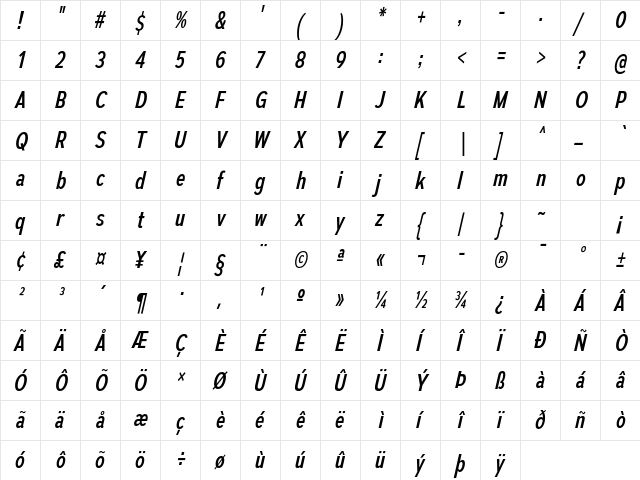
Autoradiographic Italic
Design Context for Autoradiographic Typeface
Autoradiographic offers clean, dependable letterforms without strong stylistic allegiance, making it a practical choice for designers who need flexibility. The dynamic lean of this cut emphasises speed and emphasis in any layout.
Pro Tip: Try Autoradiographic for annotation and caption copy alongside an upright companion — the contrast in angle creates a dynamic but ordered typographic system.